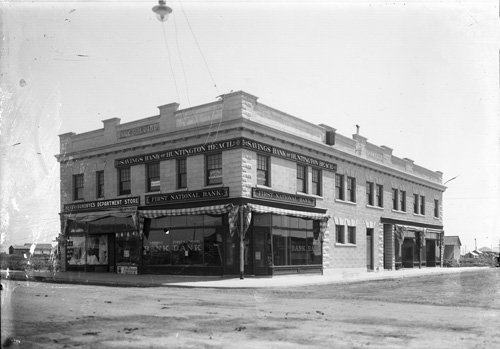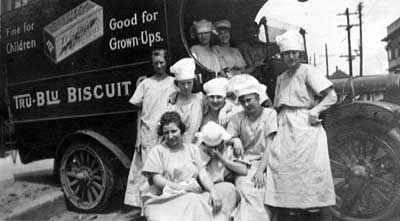
All: I suspect this may have been previously discussed here, but persons with a keen interest in photographs of historic signs, cityscapes and people will take utmost pleasure in a perusal of the treasures to be seen while visiting shorpy.com.
A remarkable number of these images are derived from original glass negatives, and the clarity is astounding.
Examples of handsome and decorative window lettering can be viewed,together with many fine pictures of factories with belching smokestacks, trucks, carriages and etc.
Those who study human nature will consider the men, women and children found here, and will ponder the dreams, hopes and fears that defined the lives of those departed souls--- now available for our examination, at shorpy.com.
Thanks for reminding me about Shorpy. Here's a photo from a 5x 7 glass neg . The building was there when I was a kid.
My grandfather Delbert "Bud" Higgins was Lifeguard chef, fire chef and then city historian. I inherited a large box of glass negetives from him and a few years ago donated them to the county of Orange for their archive.They copied everything and sent it to me on a cd so I can view them easily now.
Just have to add that if you get a chance to see the PBS series "Jazz" by Burns (Ken I think) you'll be bowled over with all the signwork and especially neon.
Wow. Talk about coincidence. I've been searching the web for reference photos for a delivery truck. I'm attaching what I have on the off-chance someone will know about vintage trucks, or at least more than I do at this stage of the game. I've inquired of every historical resource in the Spokane area where this photo was taken. I also looked at every single car and truck photo on Shorpy! I'm told that counting spokes on the wheels and the distinct shape of the sides are not very good indicators. Apparently, many of these trucks built between 1913 (I can't date the company's existence any earlier) and 1928 (the latest reference I can find) were one-offs put on standard frames. I can easily reproduce the lettering style, trademark and images included in this view, but the shape of the truck needs to be "right". About the time I produce a profile of a truck that's not correct, I'm certain someone will call me on it. Anybody? And oatis - you're absolutely correct. I discovered all kinds of neat advertising while looking for my truck!
I forgot about this site. Don't know who turned me on to ole' Shorpy Higginbotham originally (maybe you did) but what a treasure chest.
"Fine for Children, Good for Grown-ups!"
There are some nice signs on this site:
It is in the flickr handpainted signs of the world group:
You will find gems and off the wall stuff mixed together... I am Sign Dreamer in the flickr group. Gem or otherwise?...
PS. I am looking for information on my grandfather L.C. "Munch" Slade, a sign painter / musician from Gulfport, Mississippi.